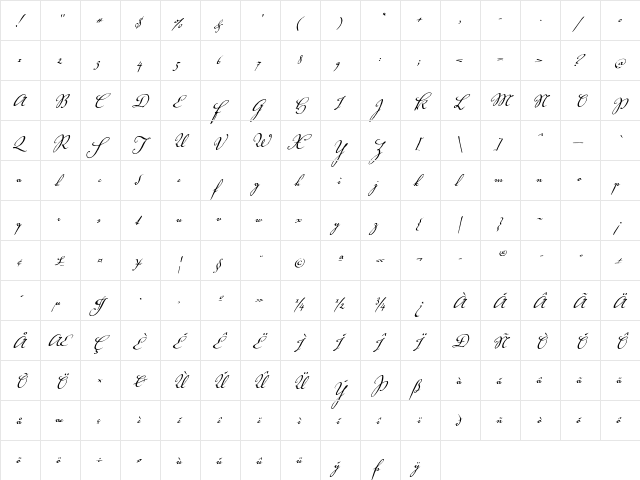
Voluta Script Pro Regular
| Designer | Viktor Solt |
Design Context for Voluta Script Pro Typeface
Voluta Script Pro brings a calligraphic fluidity to the page — its connecting strokes and expressive curves give it an unmistakably human quality.
Font Pairing: Combine Voluta Script Pro with a simple geometric sans for maximum contrast — the tension between flowing curves and clean structure is a classic typographic pairing.
Pro Tip: Pair Voluta Script Pro with a clean sans-serif for supporting text. The contrast between fluid script and geometric structure creates an elegant typographic hierarchy.